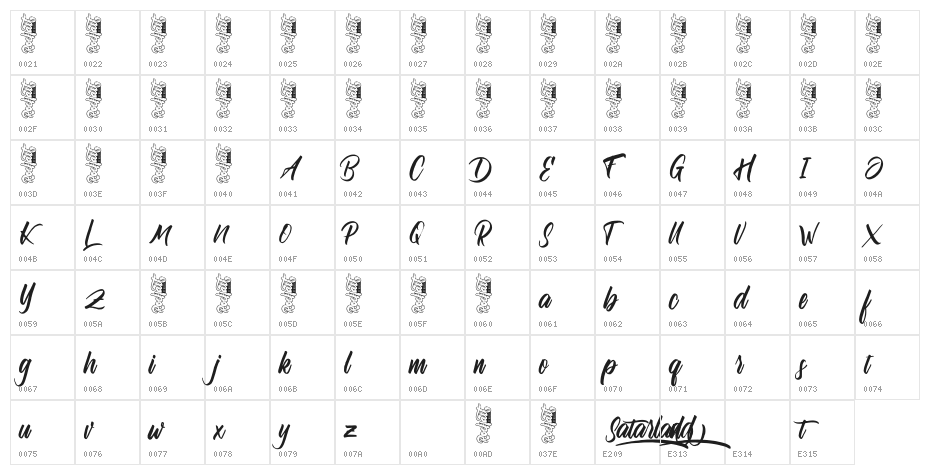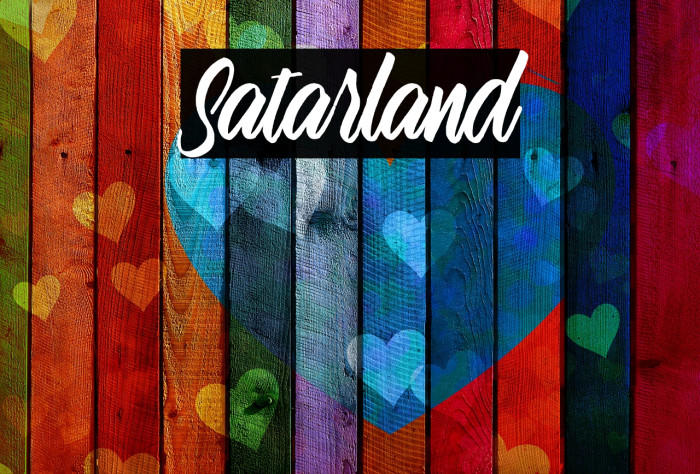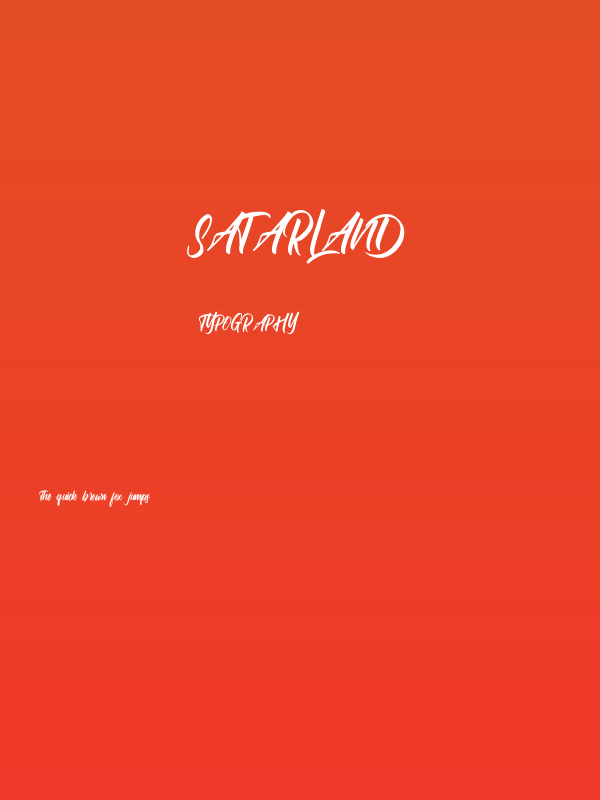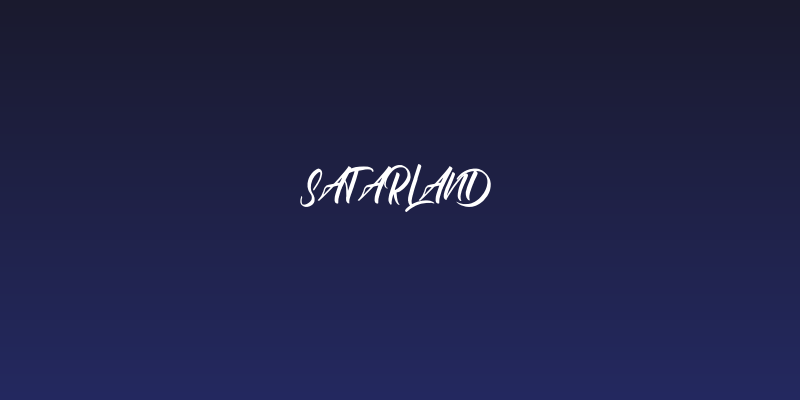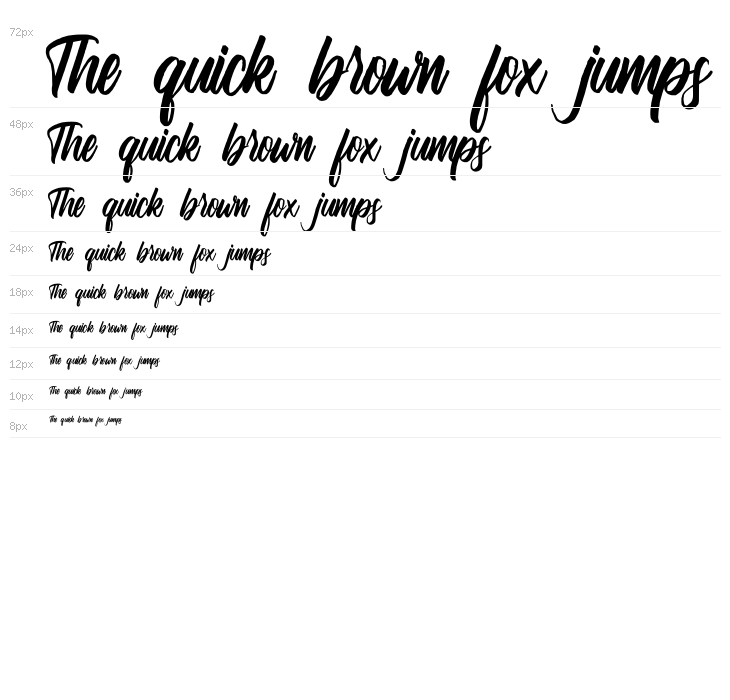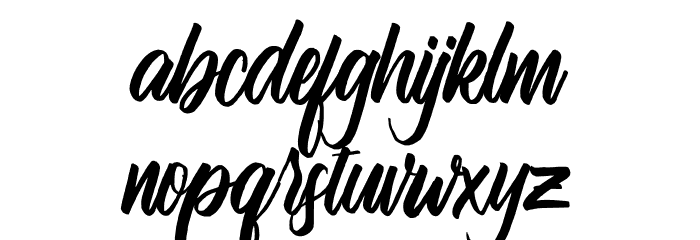
Satarland Font
Satarland Description
This font features a dynamic and expressive script style, characterized by its fluid and cursive letterforms. The uppercase letters exhibit a bold and confident flair, with sweeping strokes and a sense of motion. The lowercase letters maintain a consistent flow, enhancing readability while preserving the artistic touch. The font's unique charm lies in its ability to convey elegance and creativity, making it suitable for a variety of design projects. Its playful yet sophisticated appearance is ideal for branding, invitations, and artistic endeavors. The overall design balances between modern aesthetics and classic script influences, offering versatility and visual appeal.